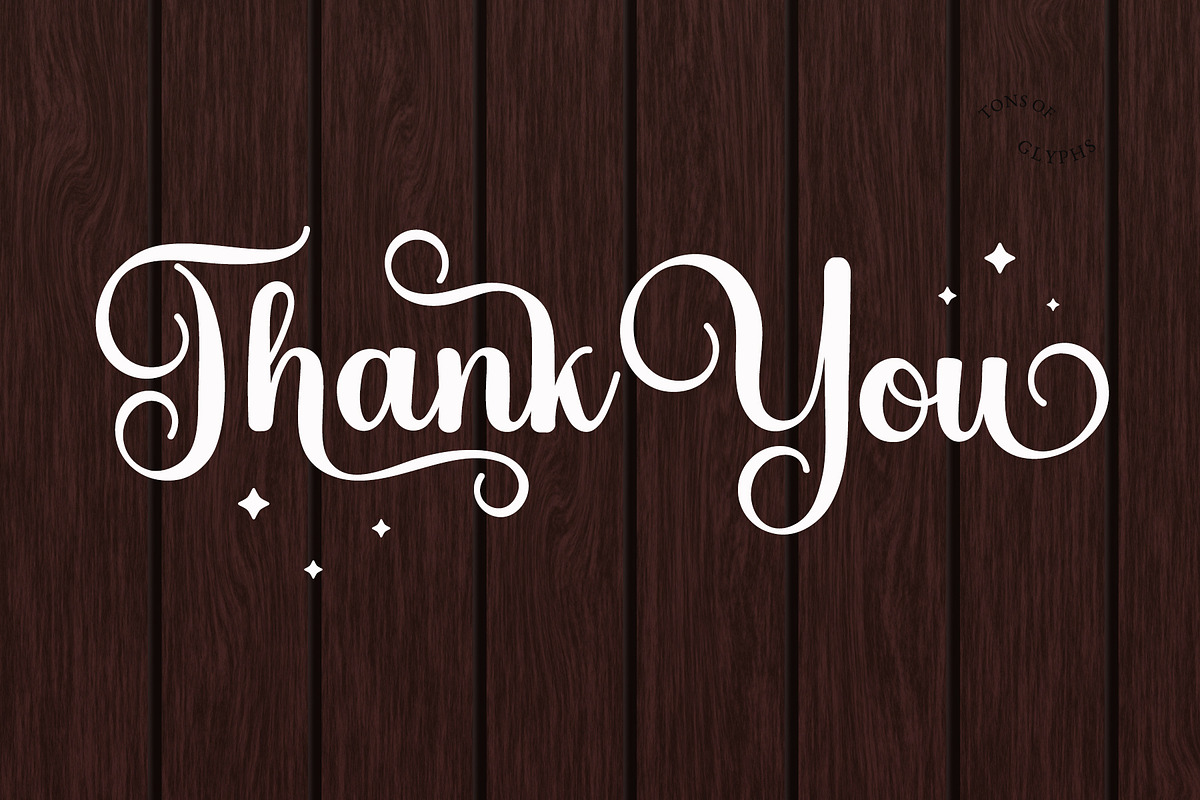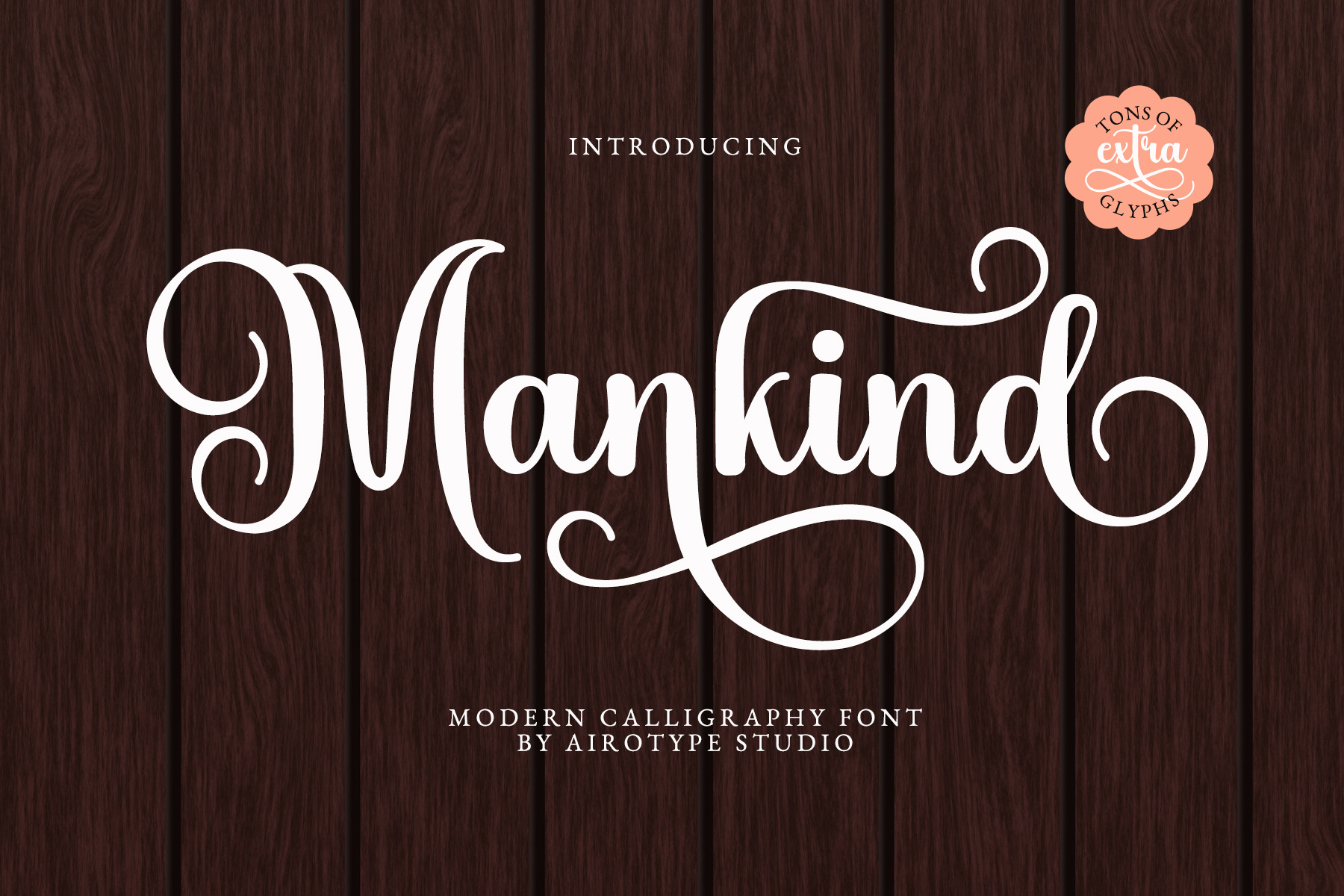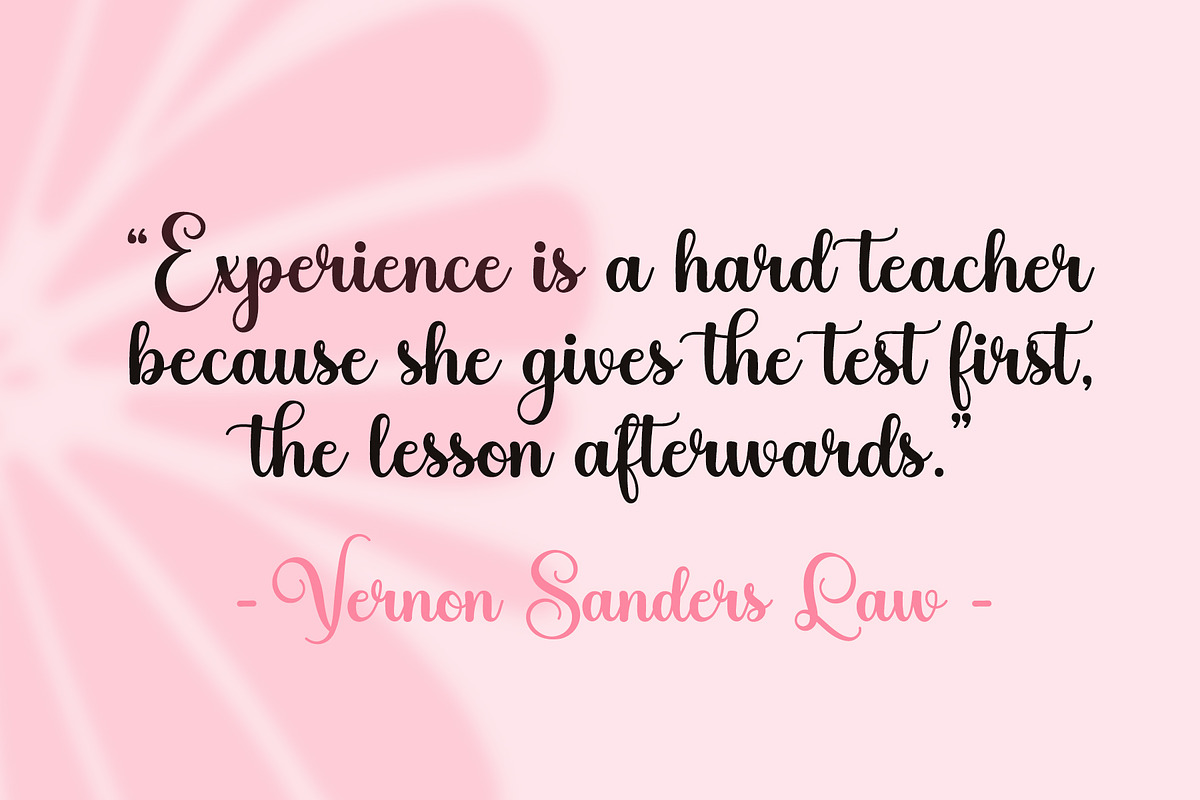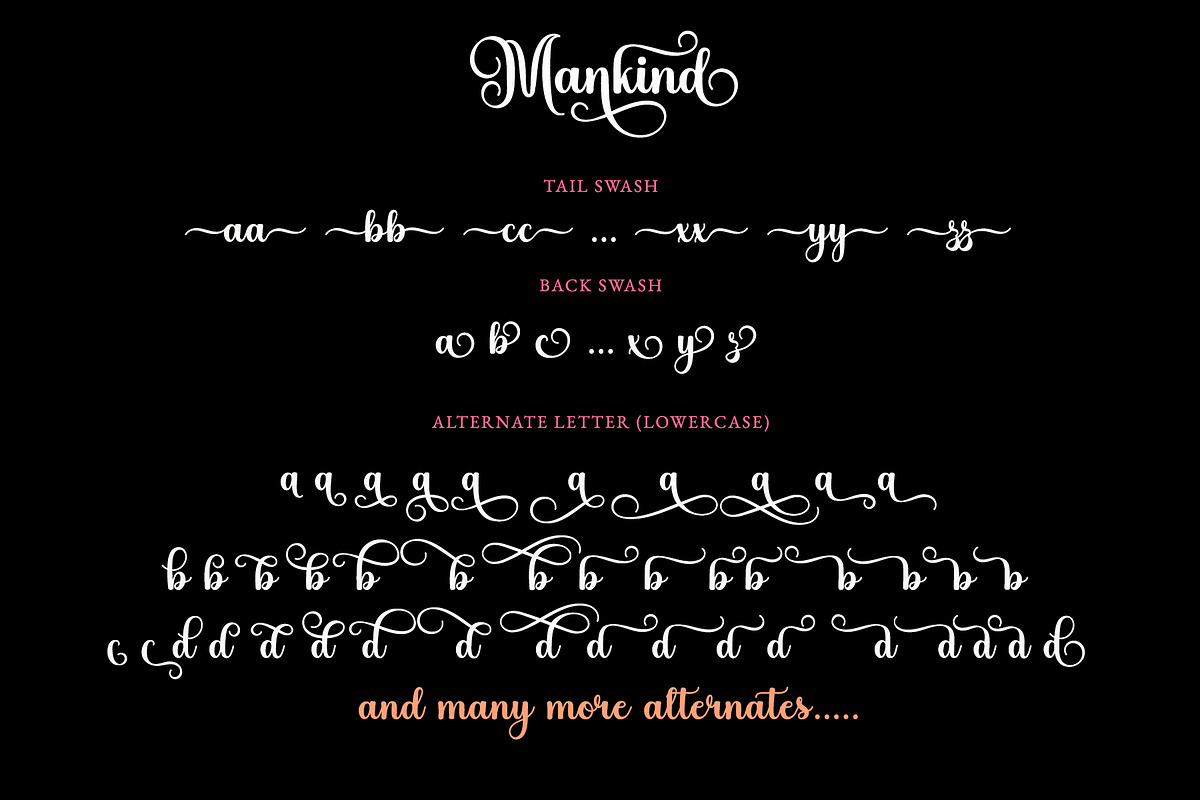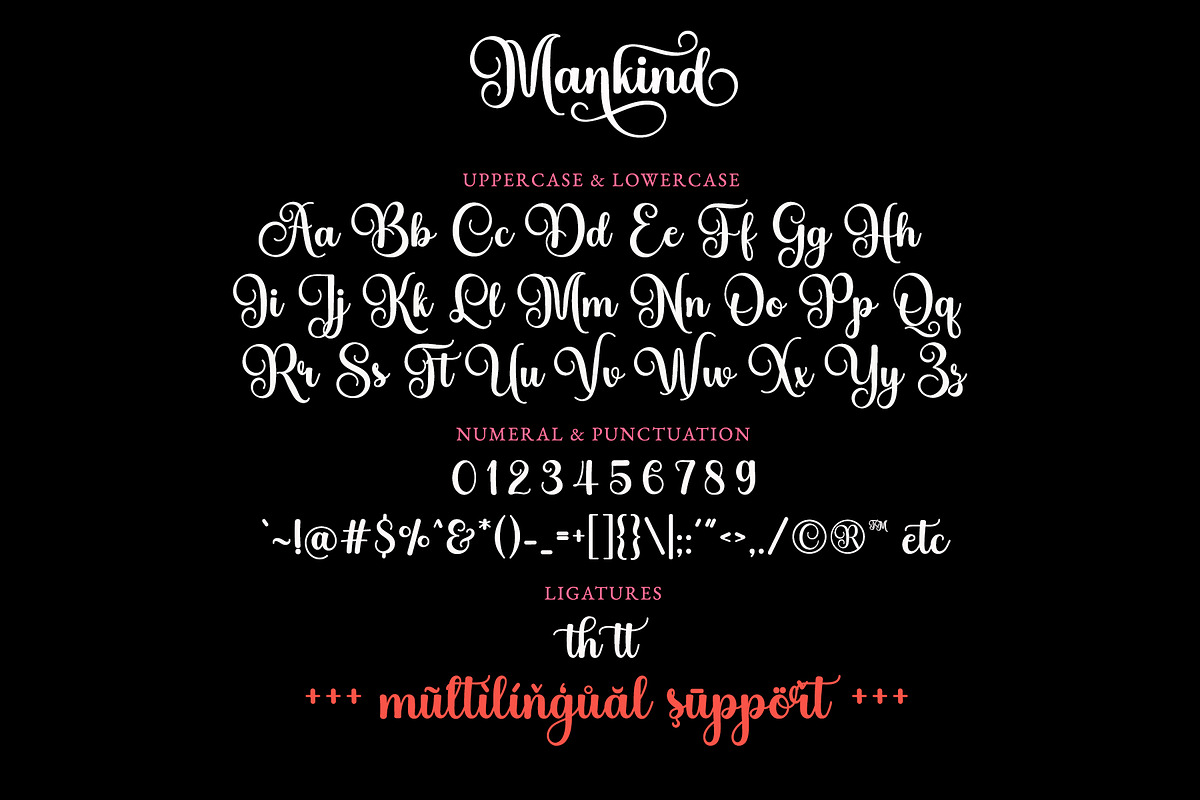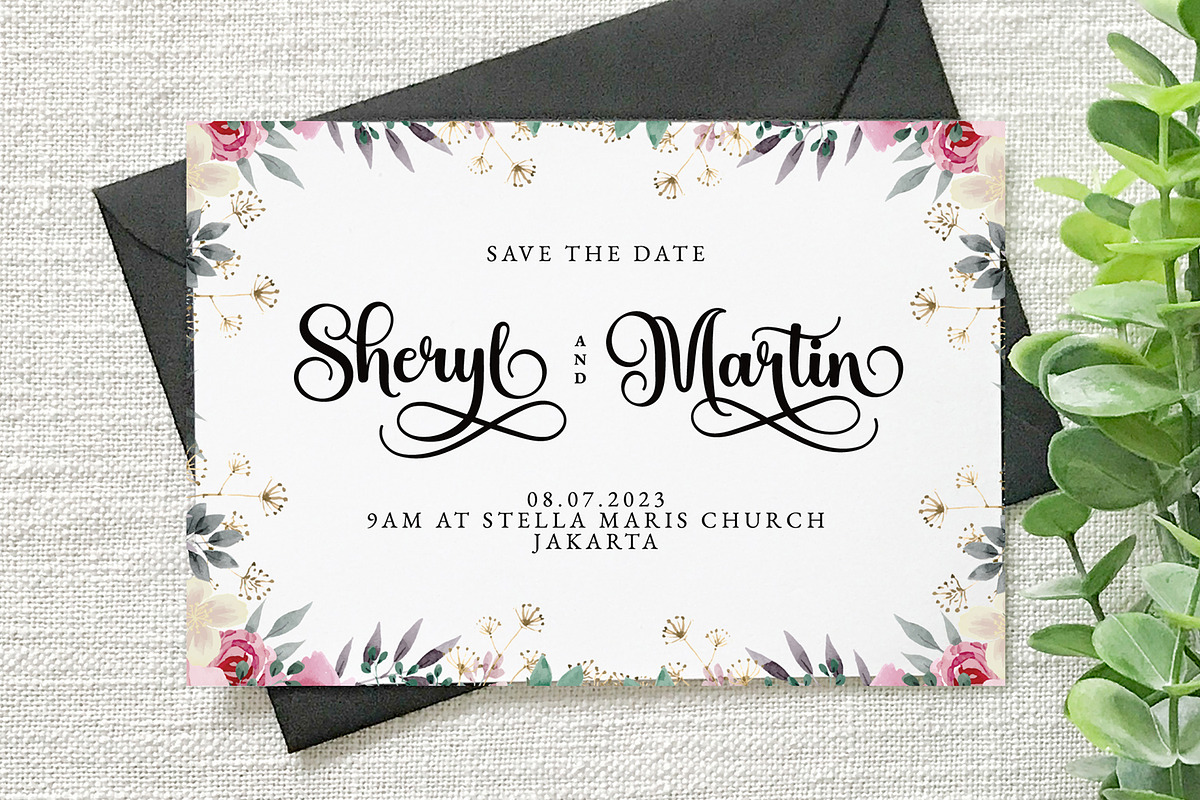
Mankind - Swirl Modern Script Font
Mankind is modern and elegant script font. It is girly, fancy, and luxury.
Mankind has lots of swirl swash/extra glyphs. It will give lots of options in designing.
Mankind is beautiful font for design with elegant and modern vibes, such as wedding, invitation, stickers, sublimation, cards, birthday, t-shirt design, farmhouse design, and others.
- Uppercase and Lowercase (includes extra glyphs / swash)
- Most Multilingual Accent